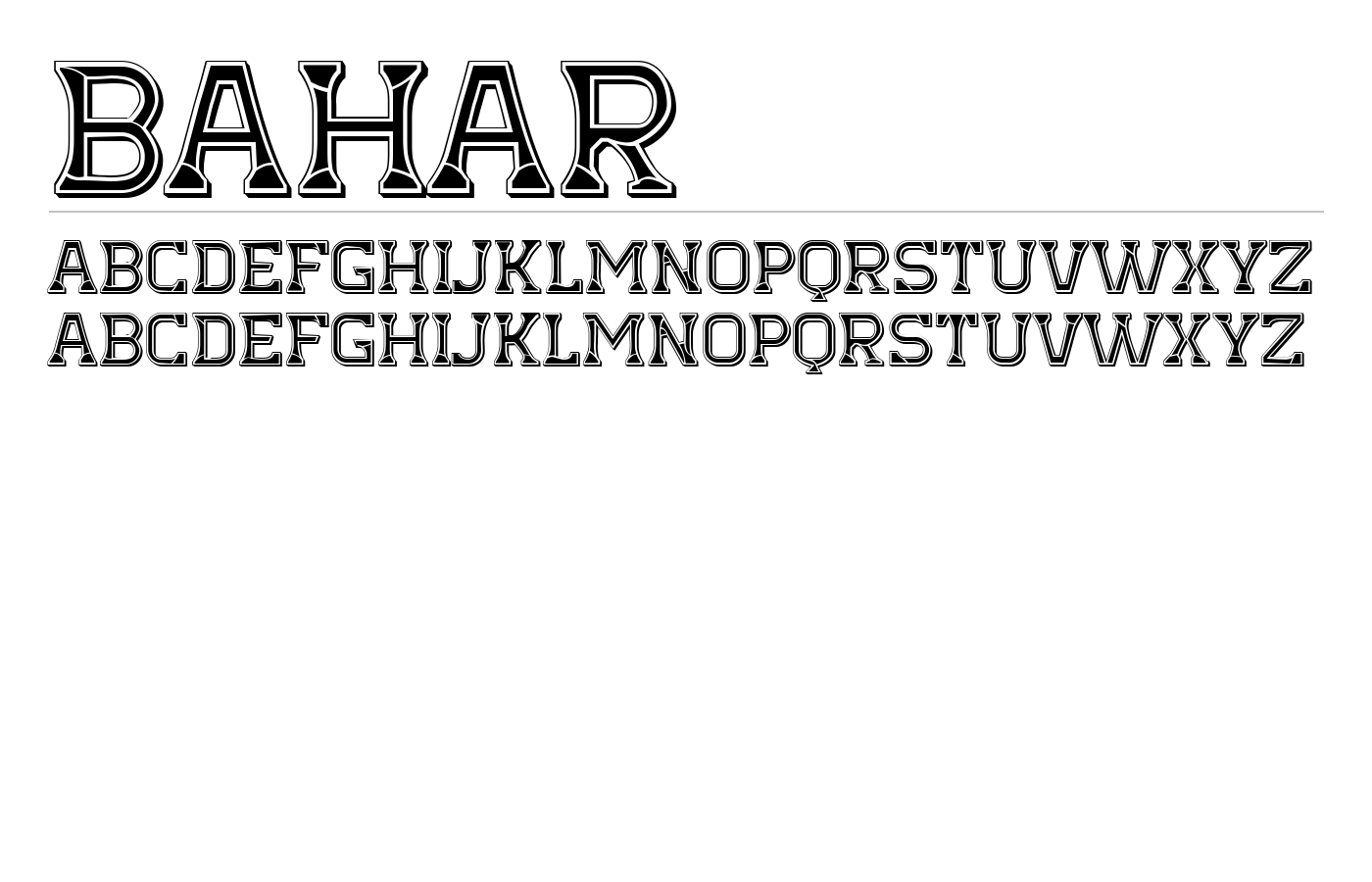
Bahar Font is a bold, decorative serif typeface with a vintage and western-inspired flair, characterized by its thick, blocky serifs and sharp, angular details. Its high contrast and layered, outlined design give it a distinctive, eye-catching personality, making it perfect for headlines, logos, and posters that need a strong, nostalgic impact. This font works especially well in branding and display settings where a bold, classic yet playful statement is desired.
Bahar Font
About Bahar Font